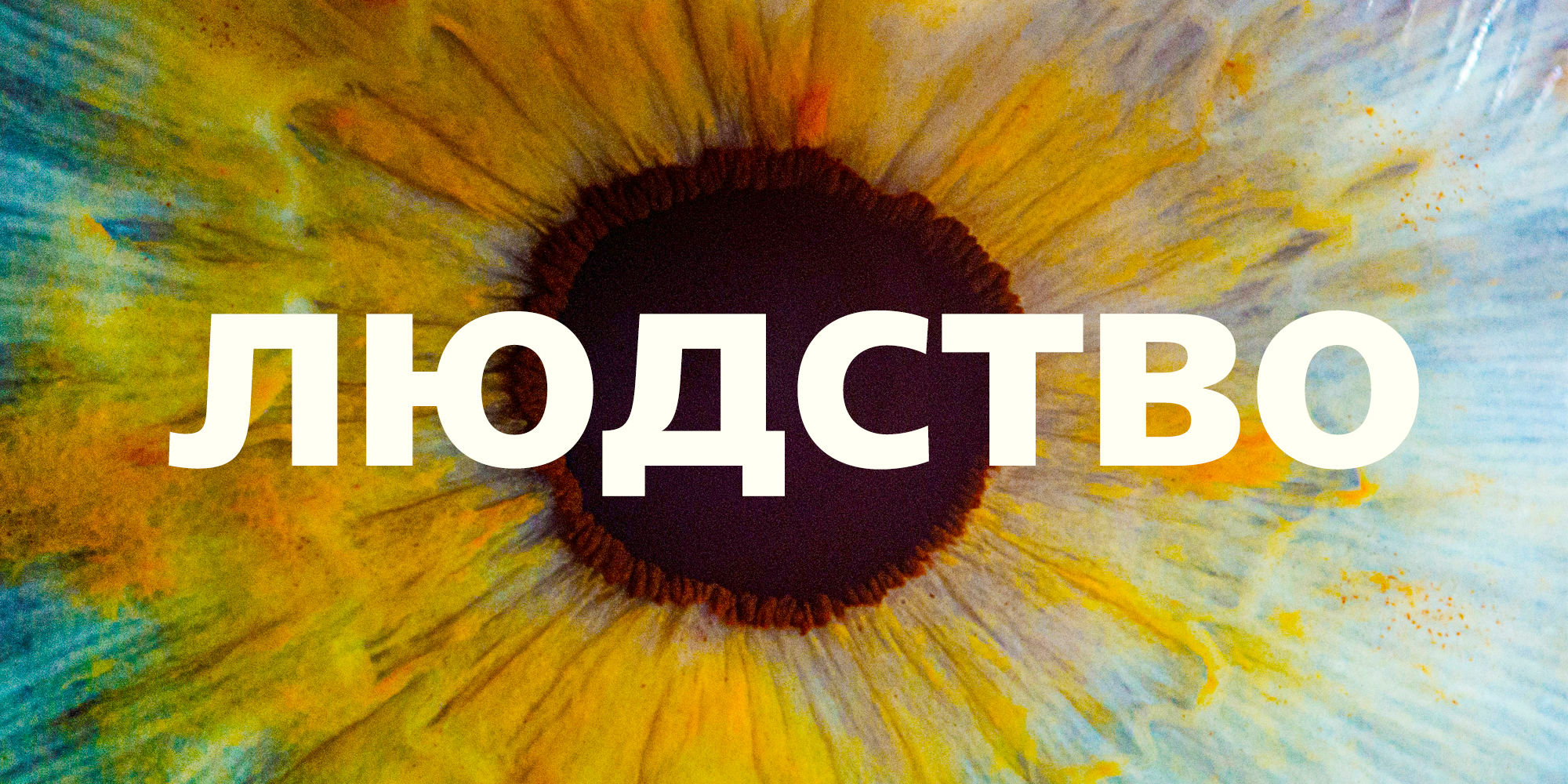
Human Кириллица
ff fi fl ffl
Standard Ligaturesliga
[H] H@ ¿H
Case-Sensitive Formscase
Human Sans is a humanist sans serif years in the making, built from the ground up to serve as a true typographic workhorse. The typeface began as an evolution of an earlier Positype design but was drawn and redrawn, crafted and recrafted until every decision was resolved on its own terms.